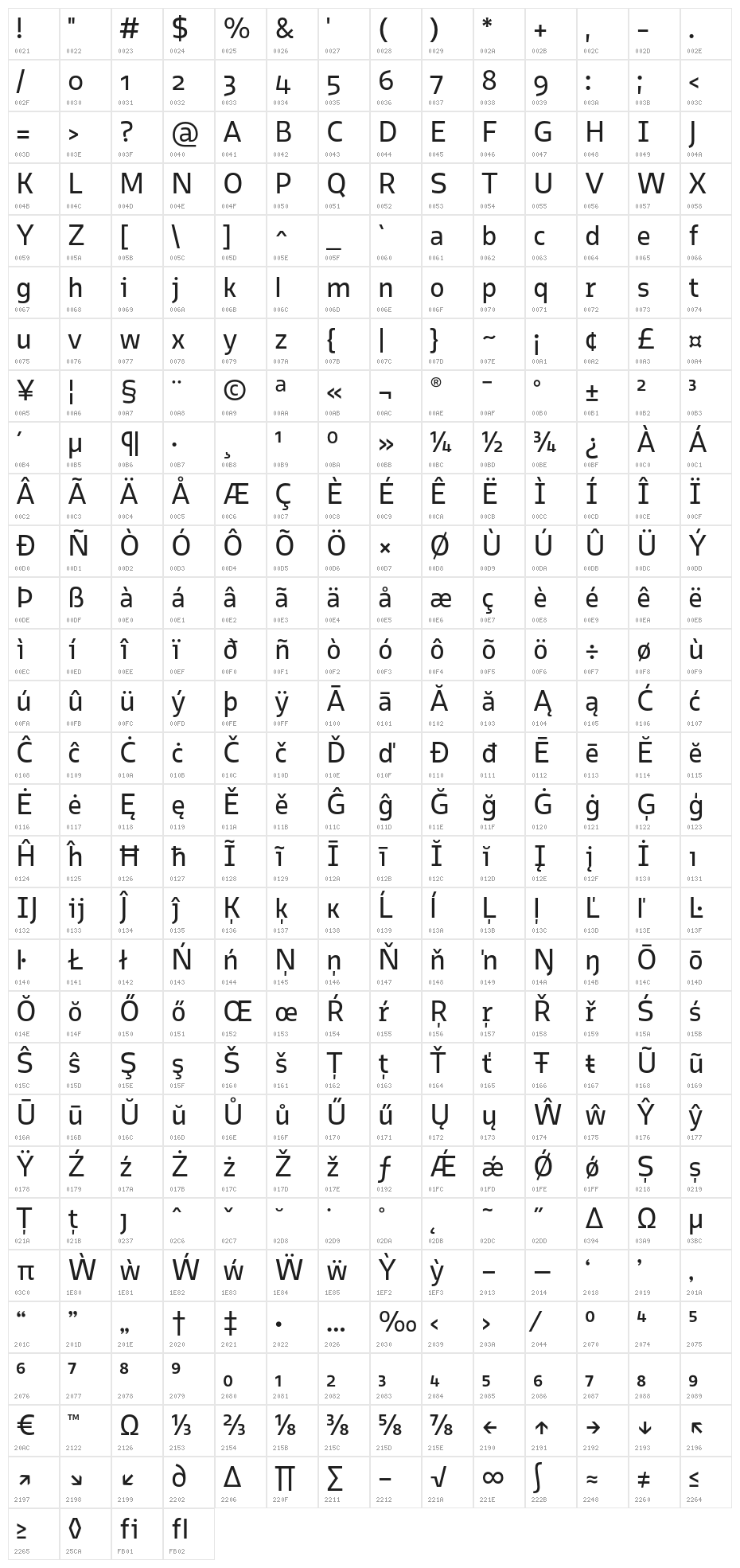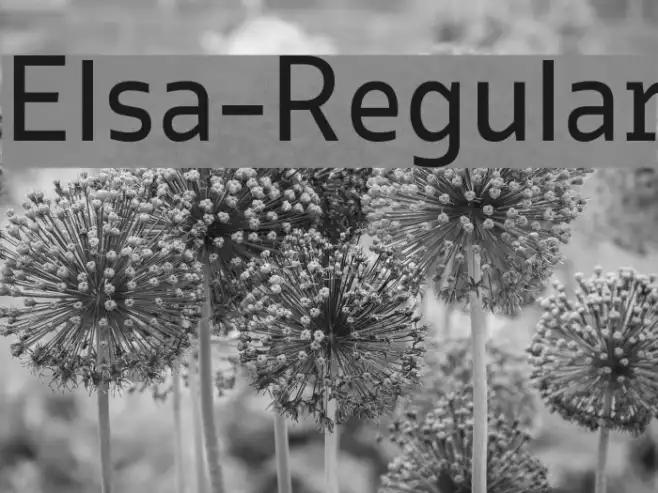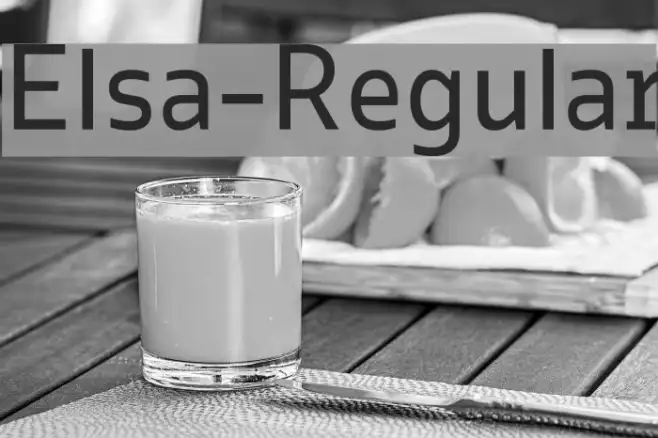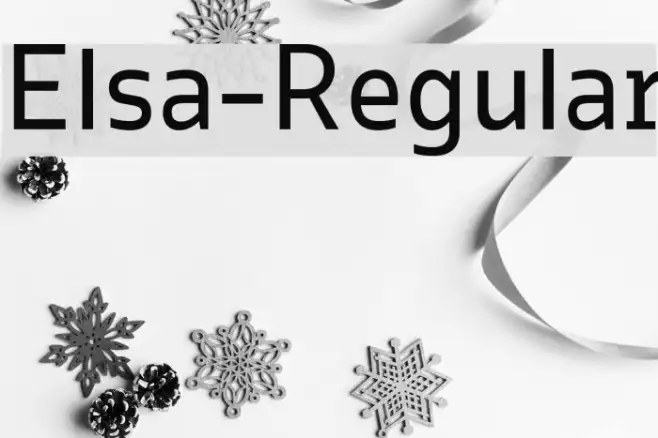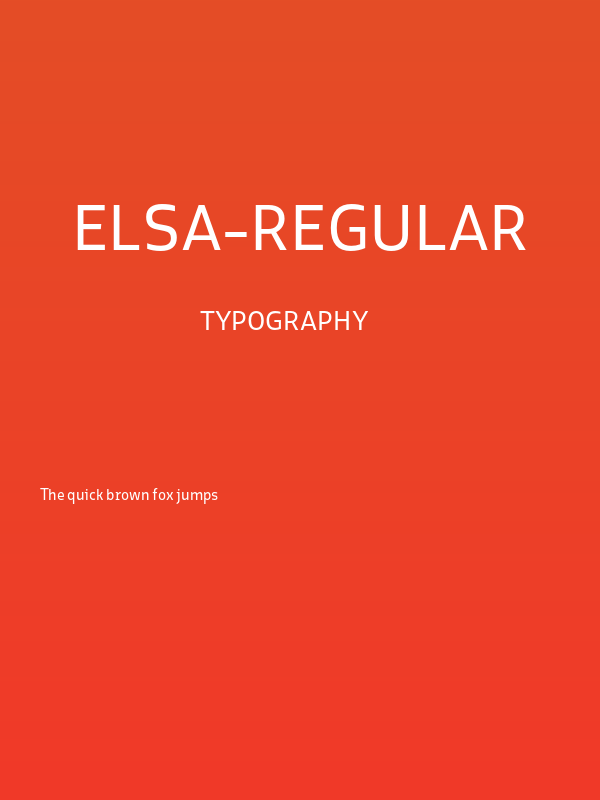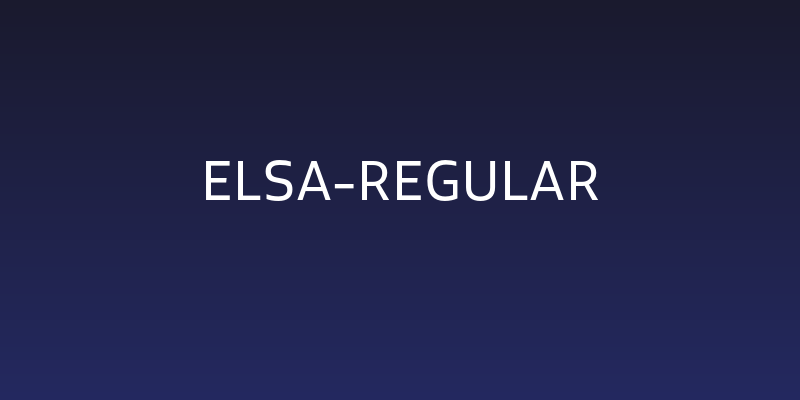
Elsa-Regular Font
Elsa-Regular Description
This font presents a clean and modern sans-serif style, characterized by its geometric shapes and uniform stroke widths. The uppercase letters are bold and assertive, while the lowercase letters maintain a consistent and harmonious appearance. The numerals are clear and legible, making them suitable for various applications. Special characters are well-defined, enhancing the font's versatility. Its simplicity and clarity make it ideal for contemporary design projects where readability and a sleek aesthetic are priorities.
| Proposed Projects | Ideal for branding, web design, advertising, and editorial layouts where a modern and clean look is desired. |